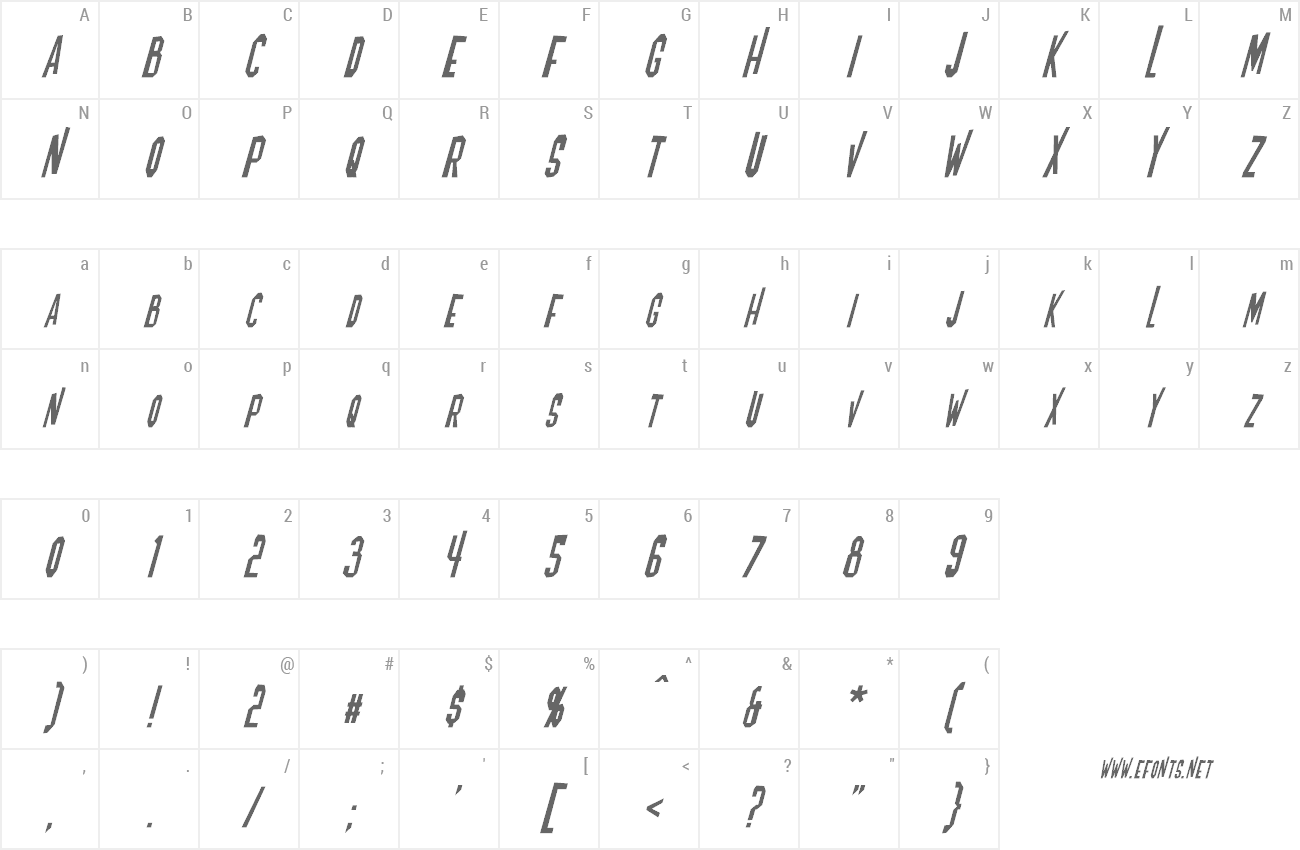
| Font name: | Blofeld |
| Author: | Pixel Sagas |
| Note by Pixel Sagas | |
| This distressed, angular font is based on the title logo of Exile's cult-classic "Evil Genius" computer game. Includes full alphabet, extended punctuation and Euro. Includes italic version. |